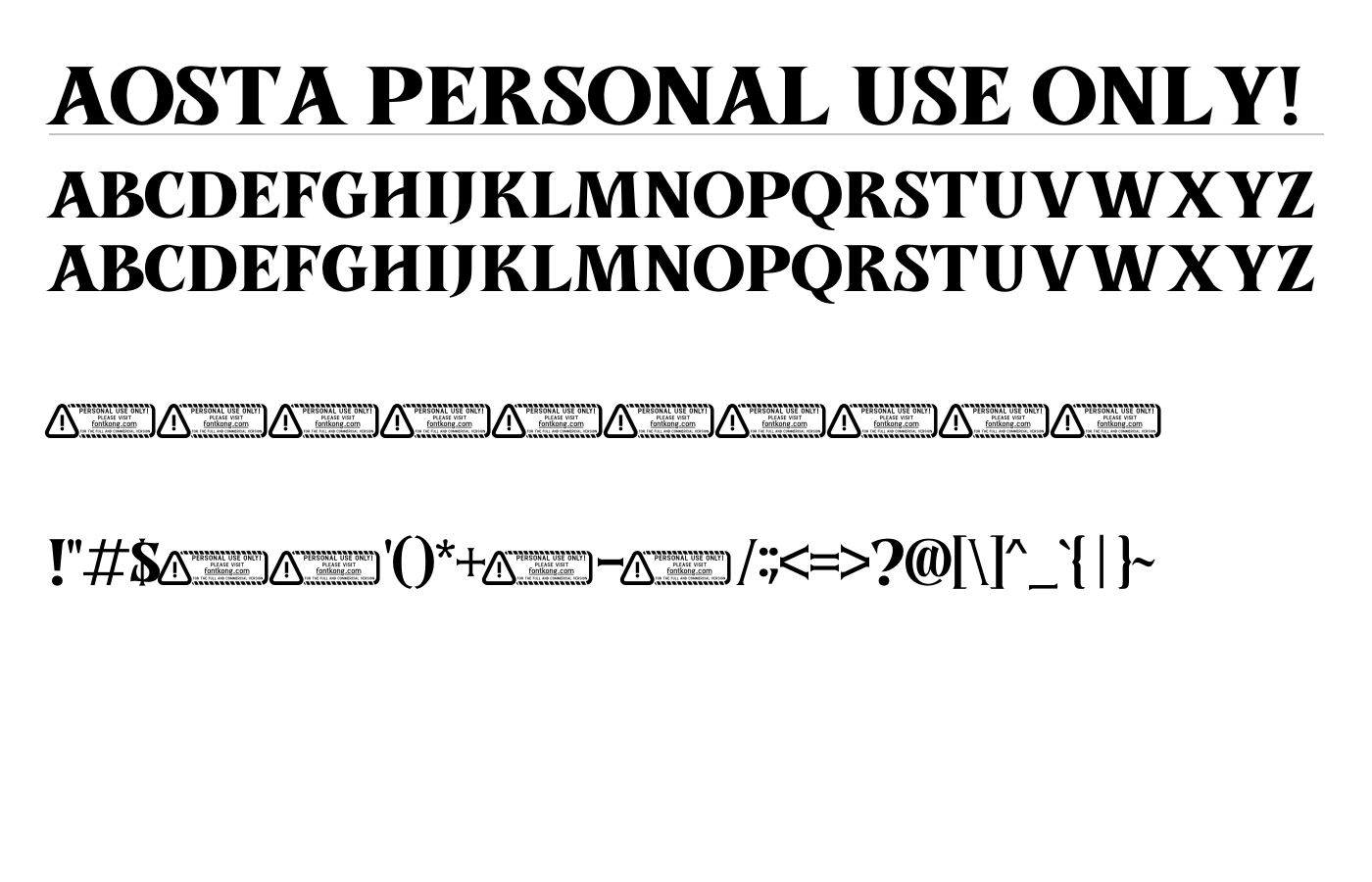
Aosta PERSONAL USE ONLY! is a bold serif font with a strong presence, featuring sharp, bracketed serifs and high contrast between thick and thin strokes that give it an elegant, classic feel. Its uppercase letterforms are sturdy and slightly condensed, making it ideal for striking headlines, logos, or editorial use where a sophisticated and authoritative tone is desired. This font works beautifully in luxury branding and headline designs due to its timeless style and impactful visual weight.
Aosta PERSONAL USE ONLY! Font
About Aosta PERSONAL USE ONLY! Font